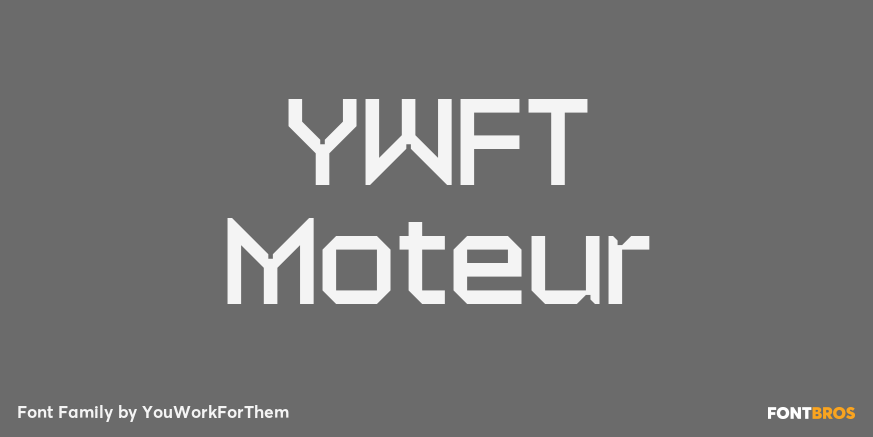
YWFT Moteur
About YWFT Moteur
YWFT Moteur began as a technical, retro, machine-like design, with a second version later released as YWFT Maetl. YWFT Moteur carries a strong inspiration from the type work of Wim Crouwel, but branches into a new realm of a more French/German engine-like…